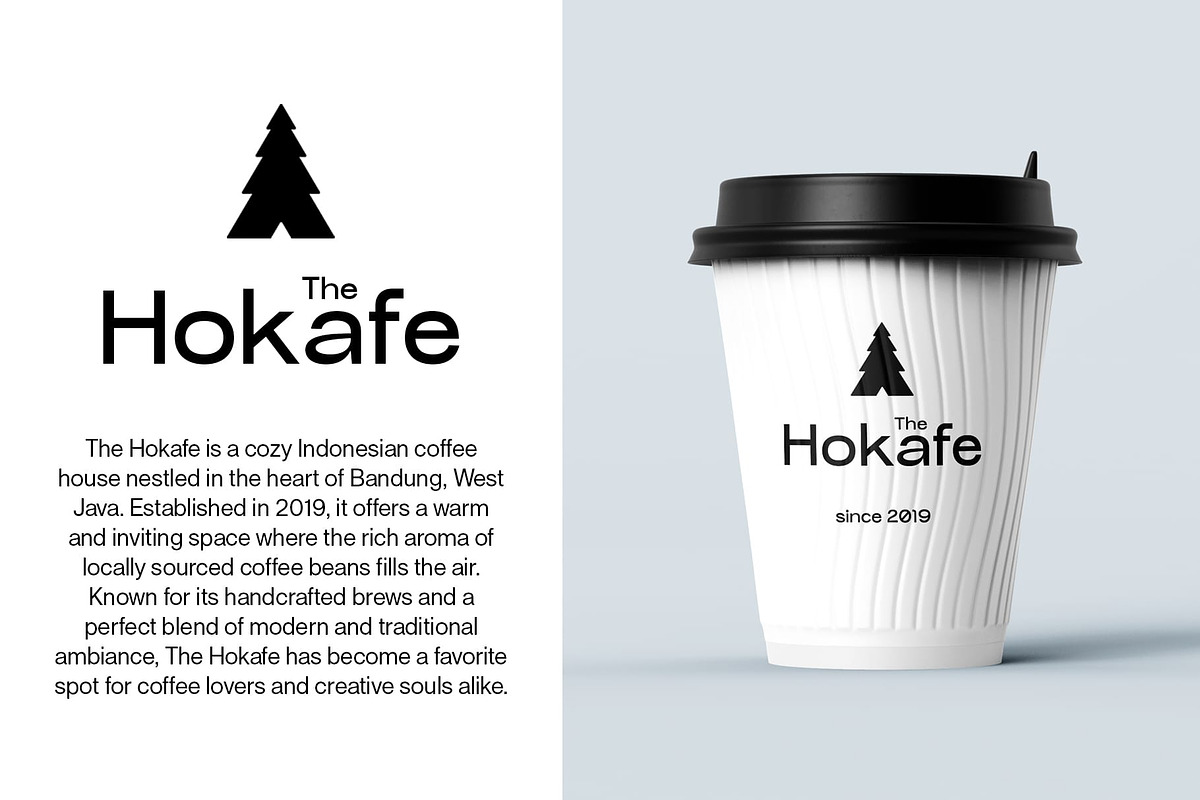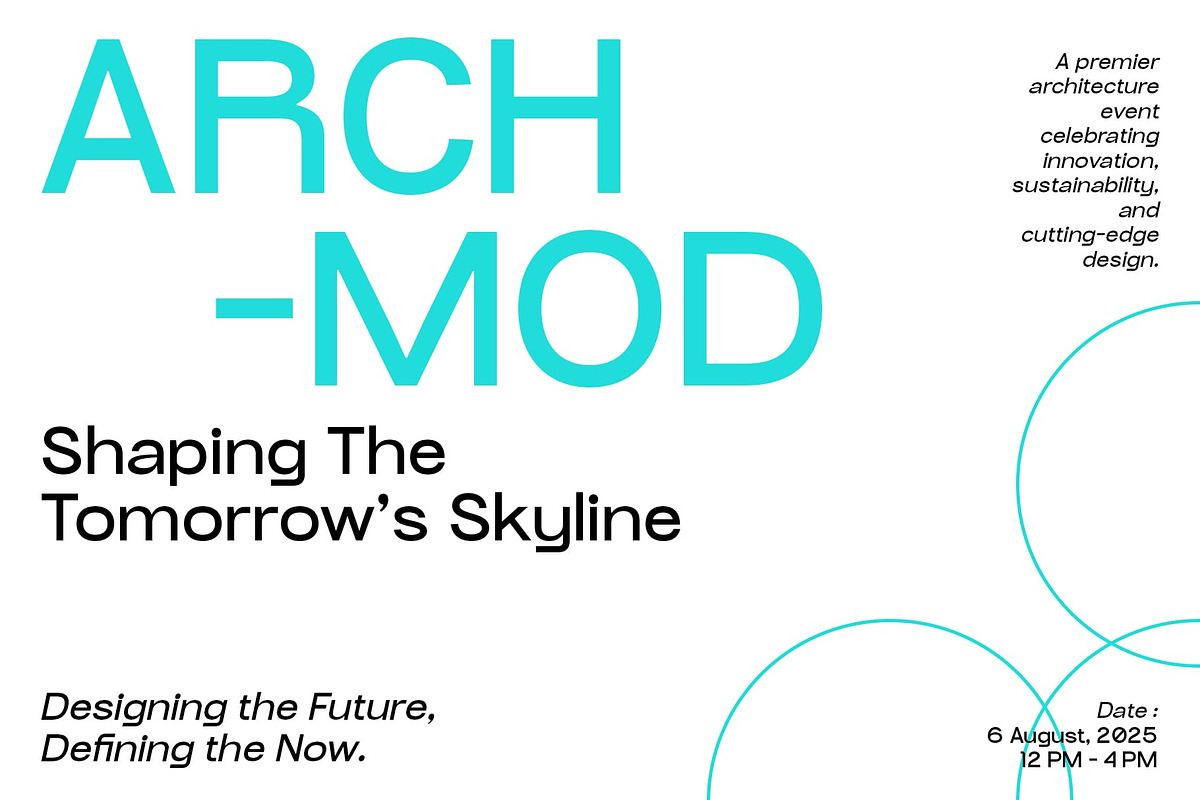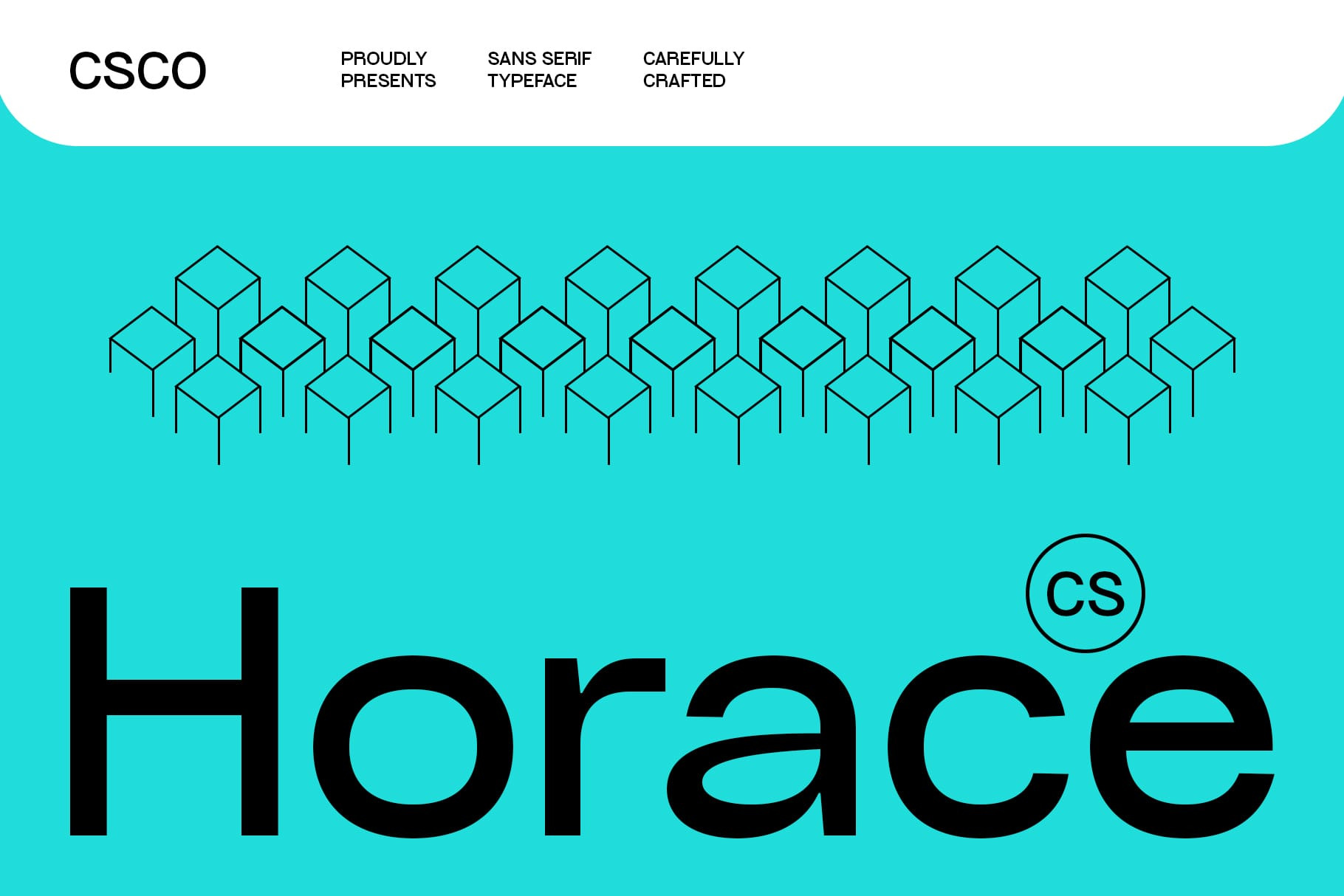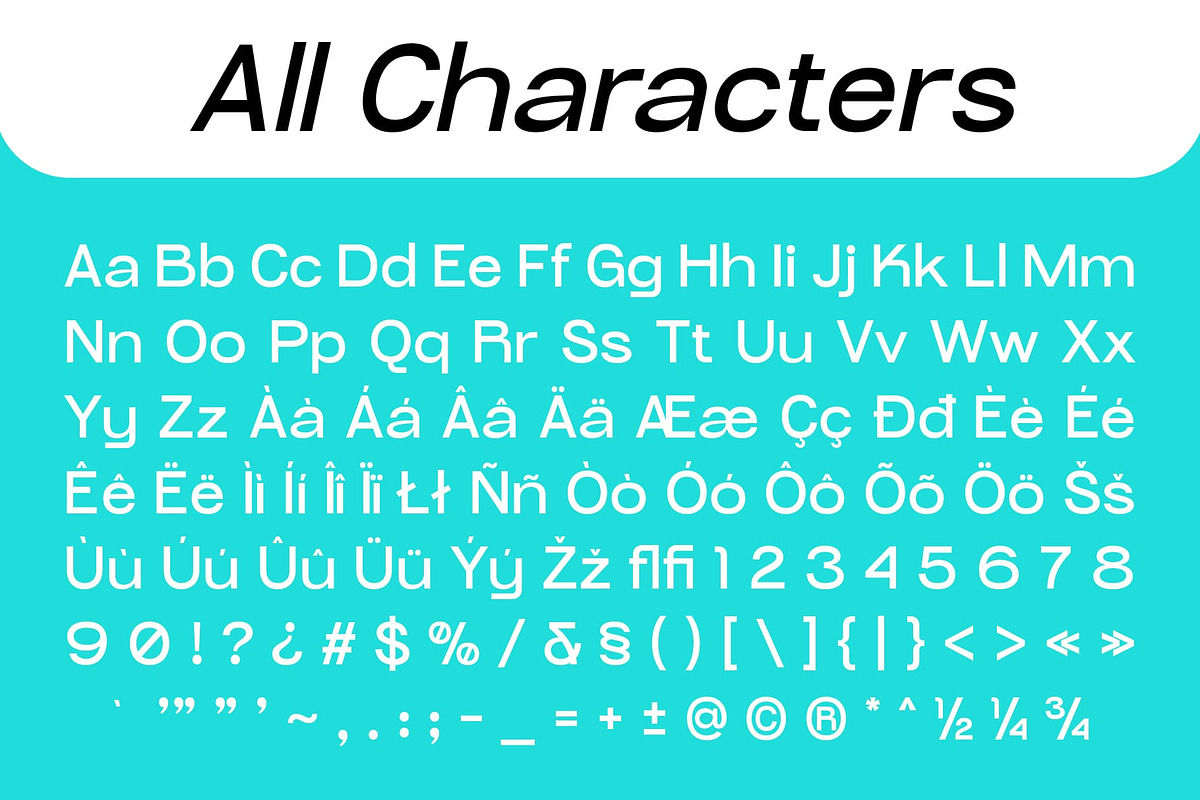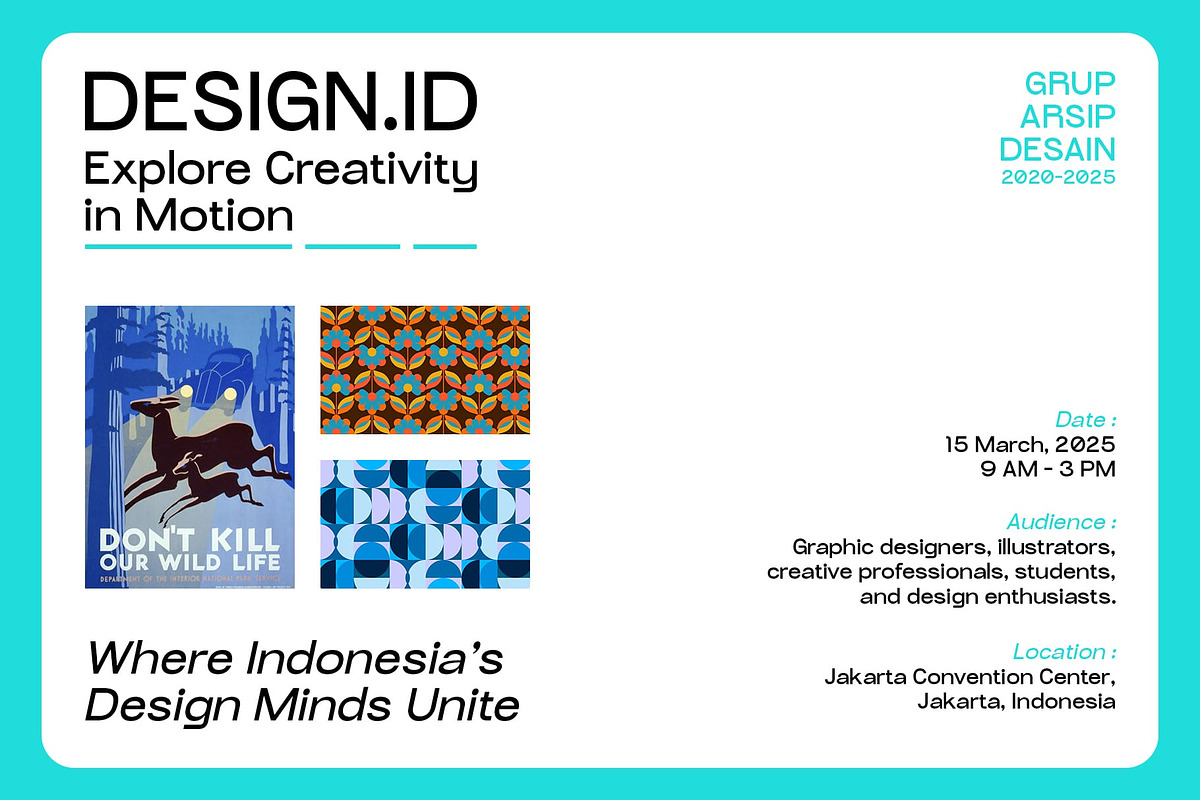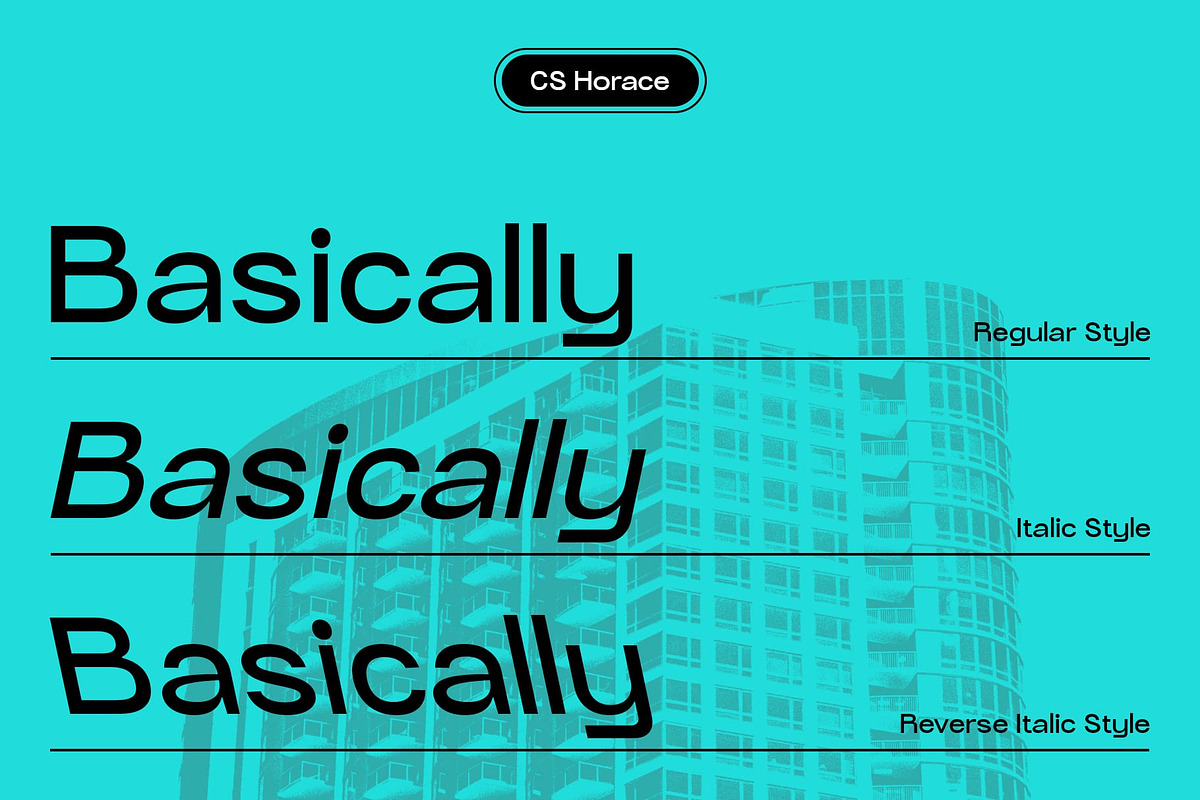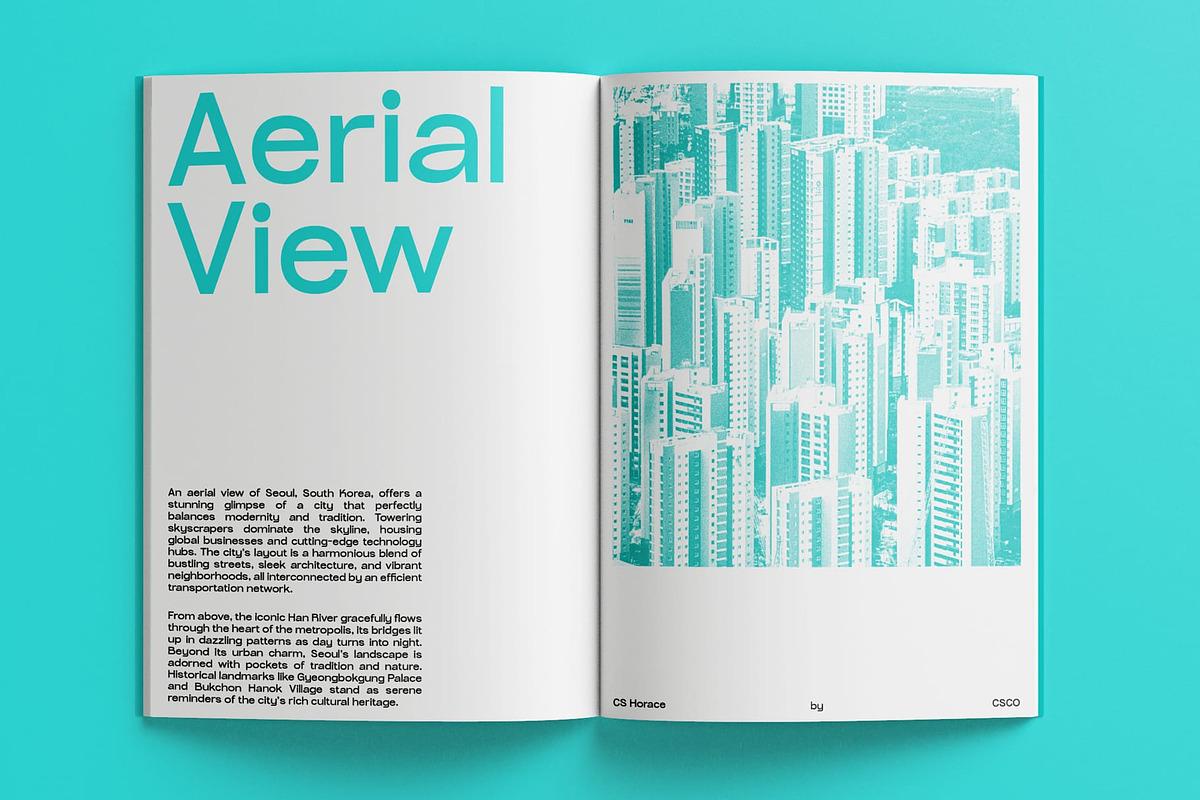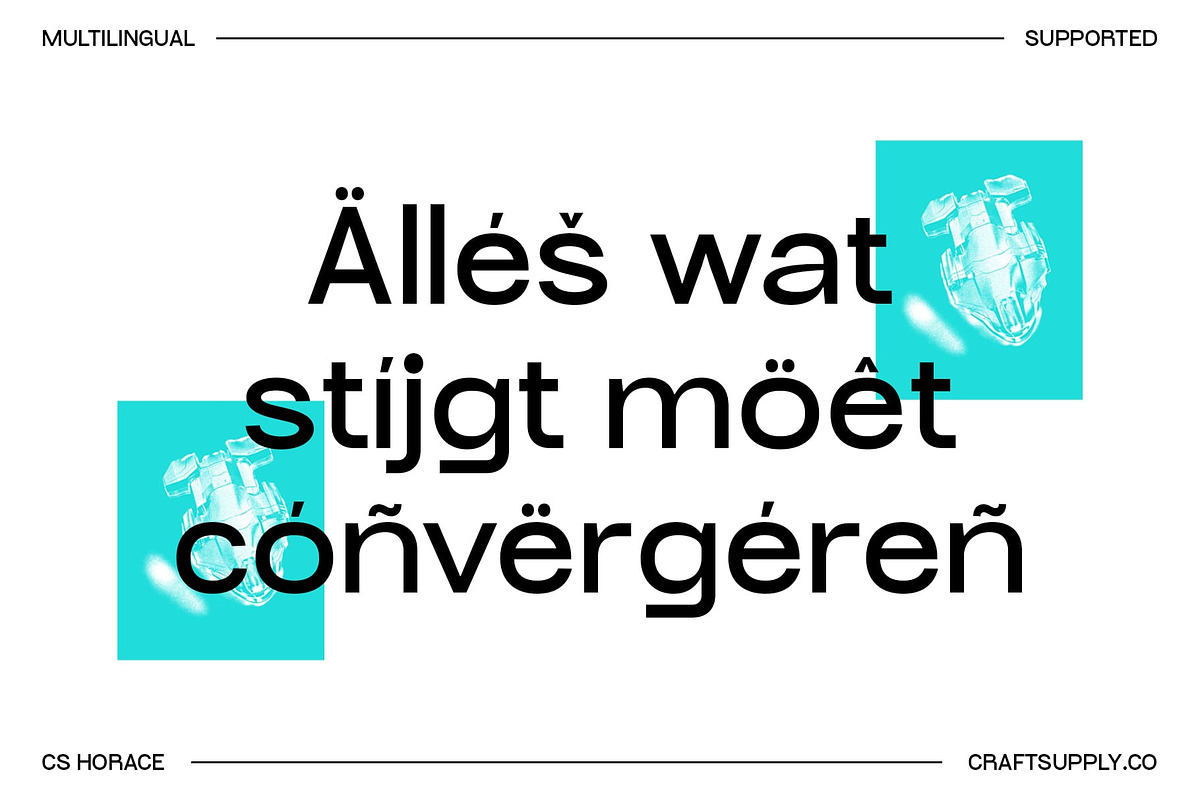
CS Horace – Contemporary Font
CS Horace – Contemporary Font: Where Modernity Meets Professional Elegance
Modern Sans Serif with Geometric Precision CS Horace – Contemporary Font is a modern sans serif typeface that combines geometric precision with a grotesque style, resulting in a clean, balanced, and visually engaging design. Its crisp lines and proportional letterforms exude professionalism and sophistication, making it an excellent choice for high-end corporate and creative projects.
Minimalist Design for Sophistication and Clarity The minimalist structure of CS Horace emphasizes clarity and elegance. Its streamlined aesthetic allows it to communicate effectively without unnecessary embellishments, ensuring that your message remains the focal point. Ideal for branding, editorial layouts, and presentations, this font adds a touch of understated sophistication to any design.
Exceptional Readability for Versatile Applications CS Horace is designed with readability in mind, ensuring that text remains clear and easy to understand across various mediums. Whether you’re designing for print or digital platforms, its versatile and professional appearance adapts seamlessly to diverse uses such as corporate documents, business websites, or promotional materials.
Perfect for Contemporary Design Projects Blending modern design with timeless appeal, CS Horace is the ultimate choice for projects requiring a contemporary edge. From headlines and logos to packaging and advertisements, its versatile and elegant qualities make it a go-to font for creating polished, impactful designs that stand out.